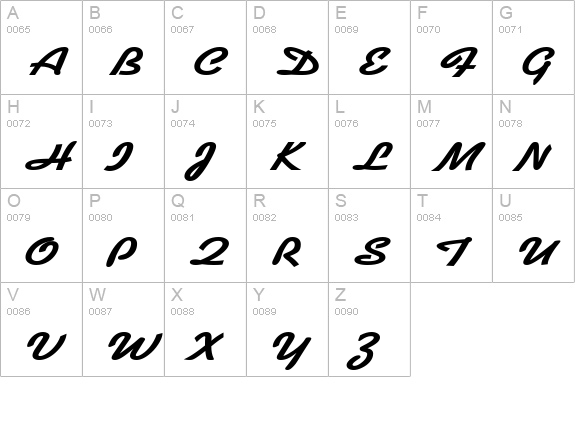
DinerScriptExtended Bold is a strong, high-contrast variant in the DinerScriptExtended typeface family \xE2\x80\x94 well suited to headlines, attention-grabbing titles, and strong calls-to-action.
DinerScriptExtended Bold font is a bold and eye-catching typeface perfect for making a statement. Its vintage-inspired design adds a touch of retro charm to any project. The thick strokes and distinctive letterforms make this font stand out in headlines, logos, and posters. DinerScriptExtended Bold is versatile and can be used for both modern and classic designs. Best of all, DinerScriptExtended Bold font is available for free download at FontsMarket.com. This means you can add this unique and stylish font to your collection without any cost. Don't miss out on the opportunity to enhance your designs with DinerScriptExtended Bold font today!